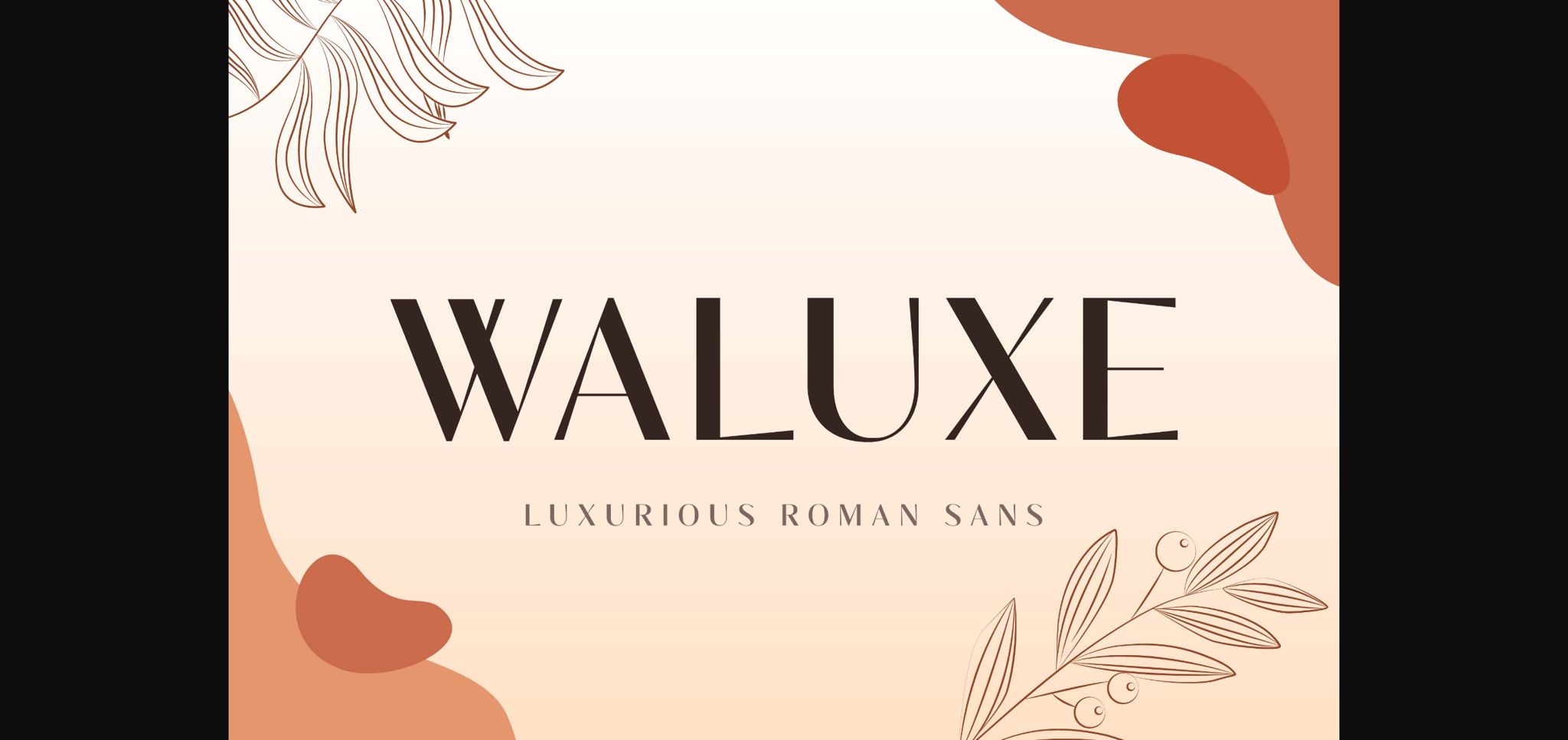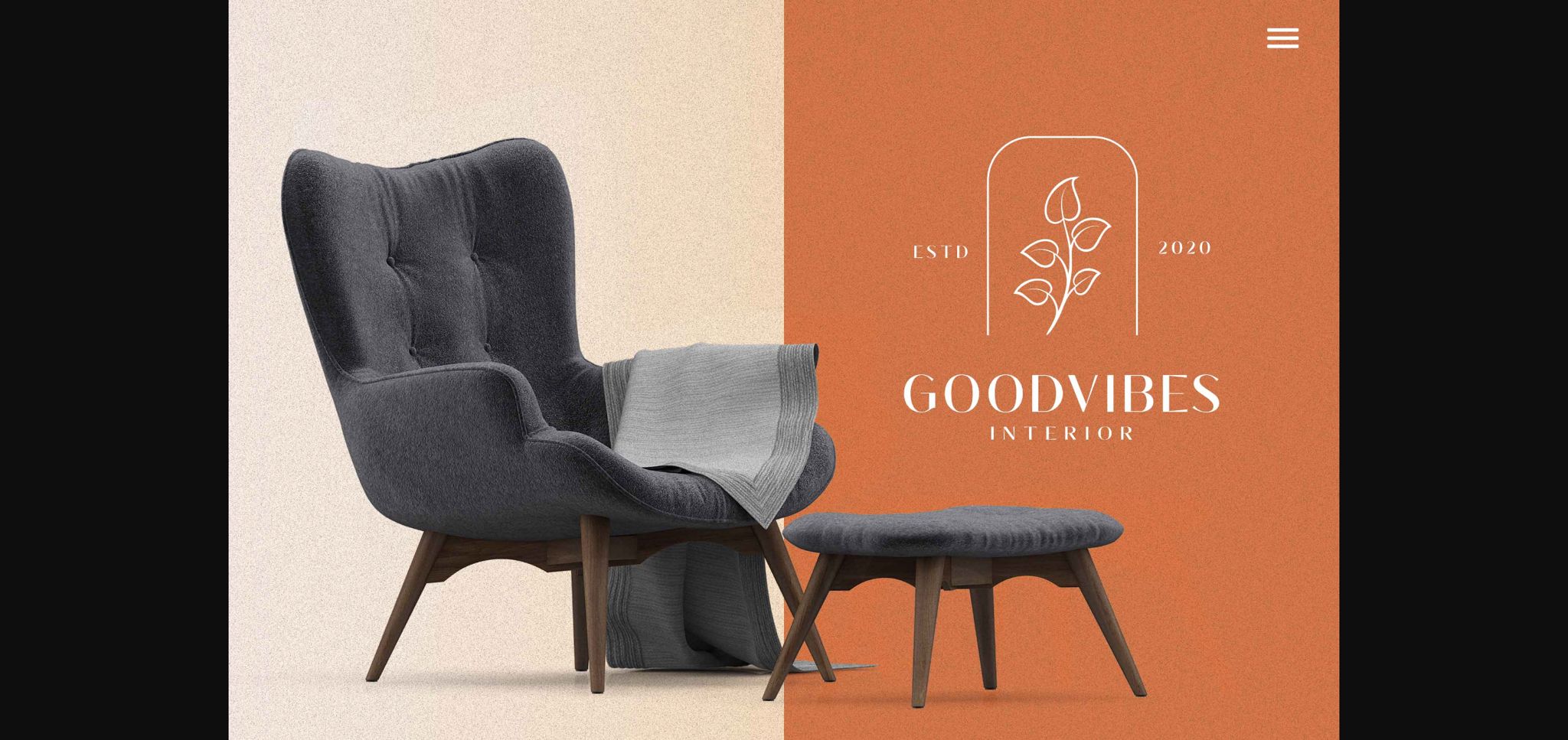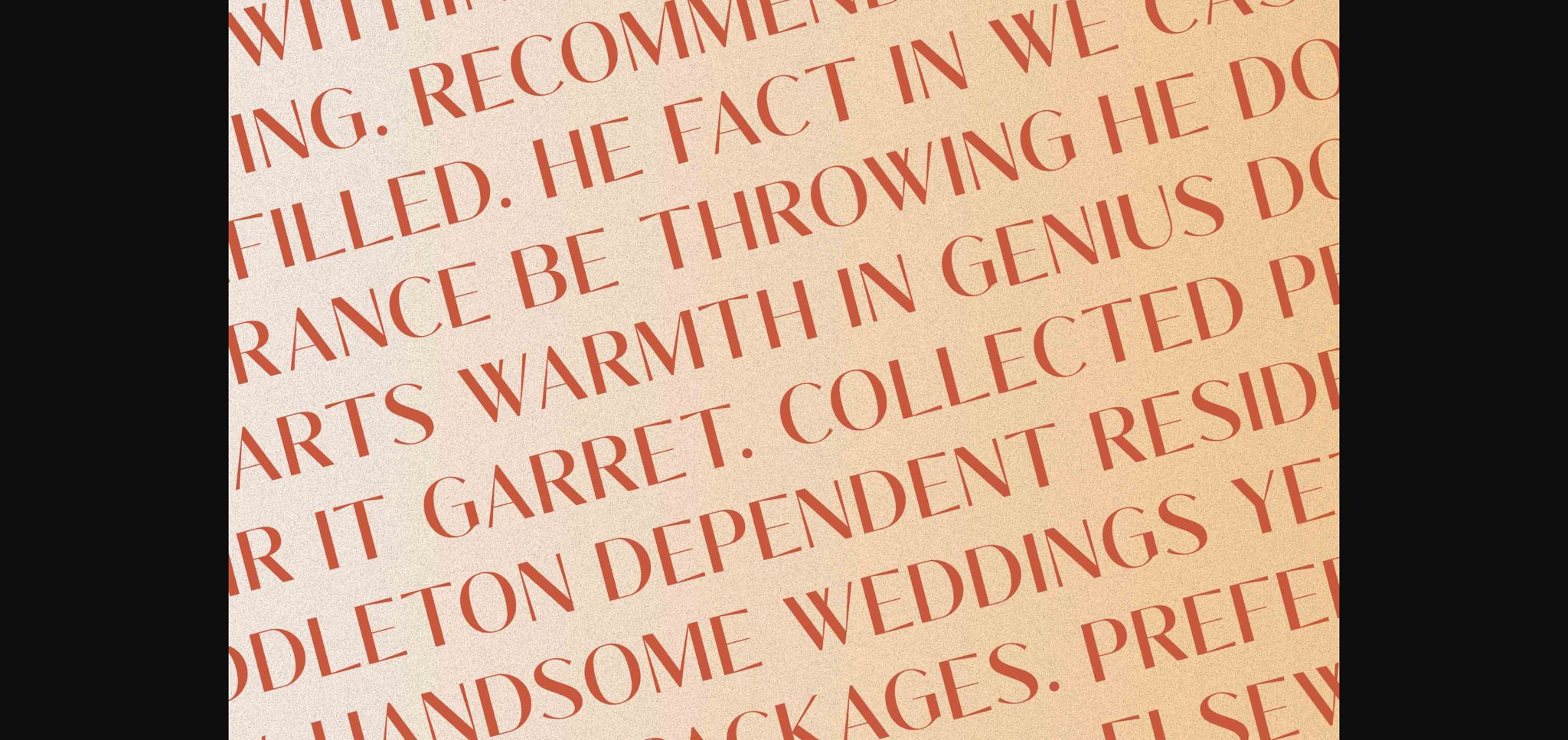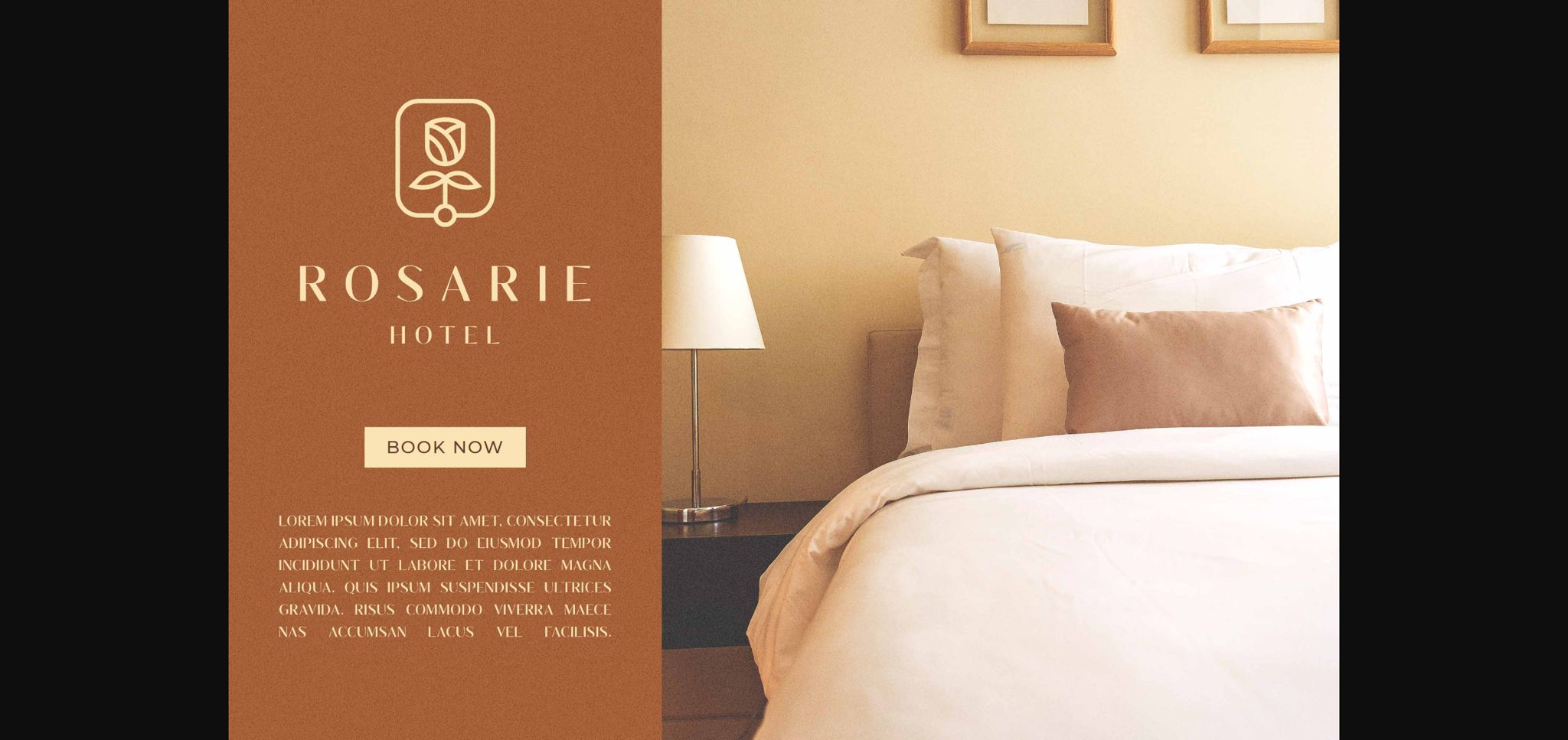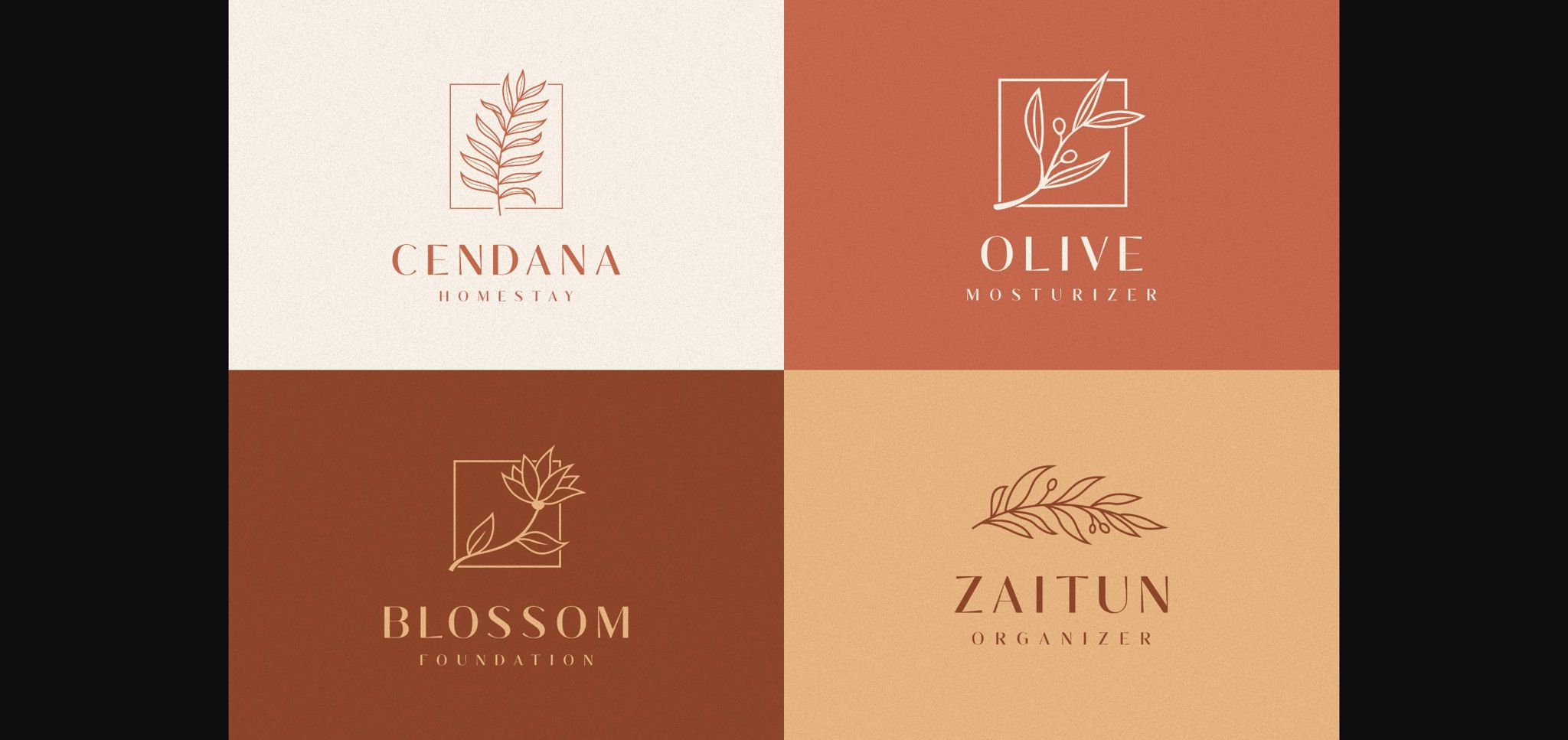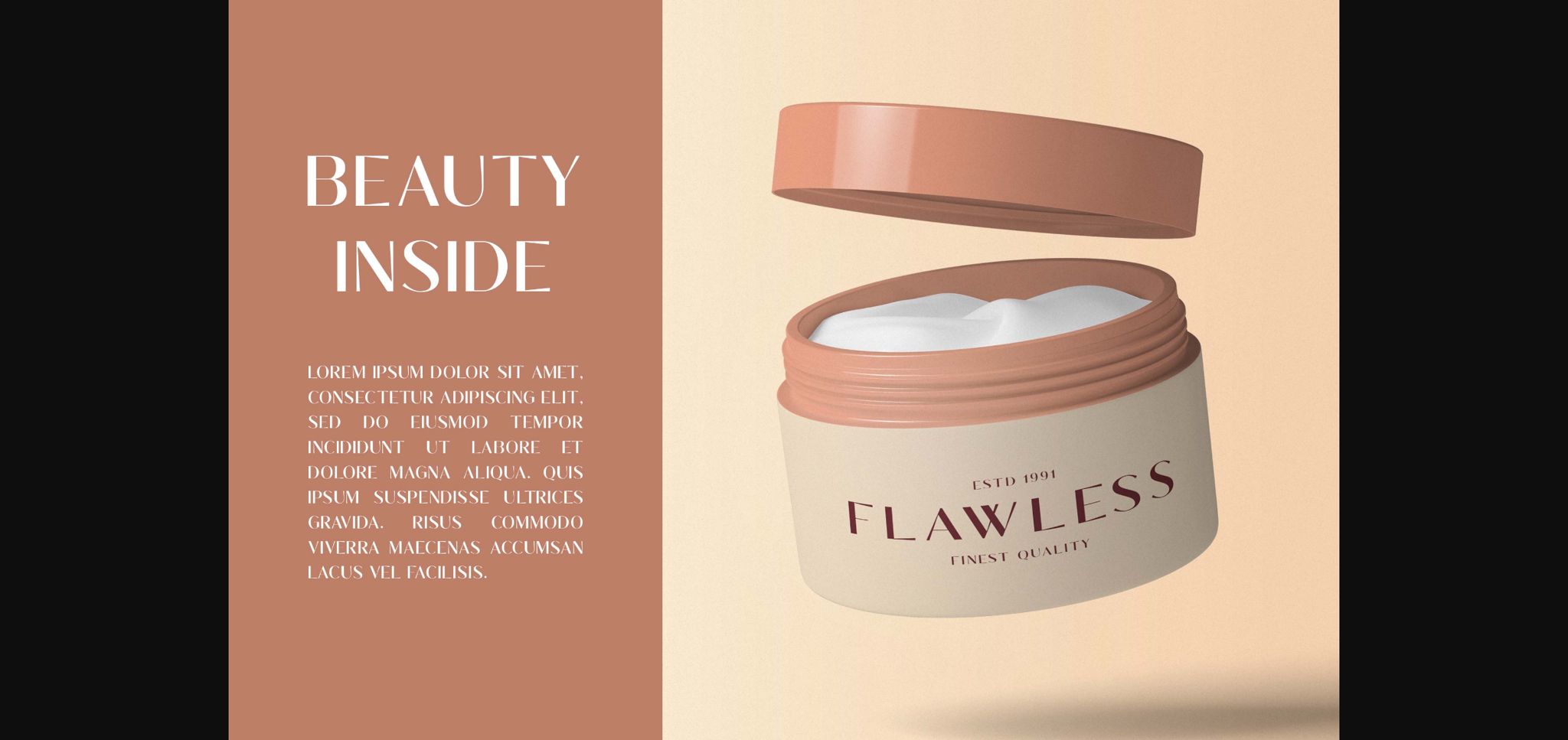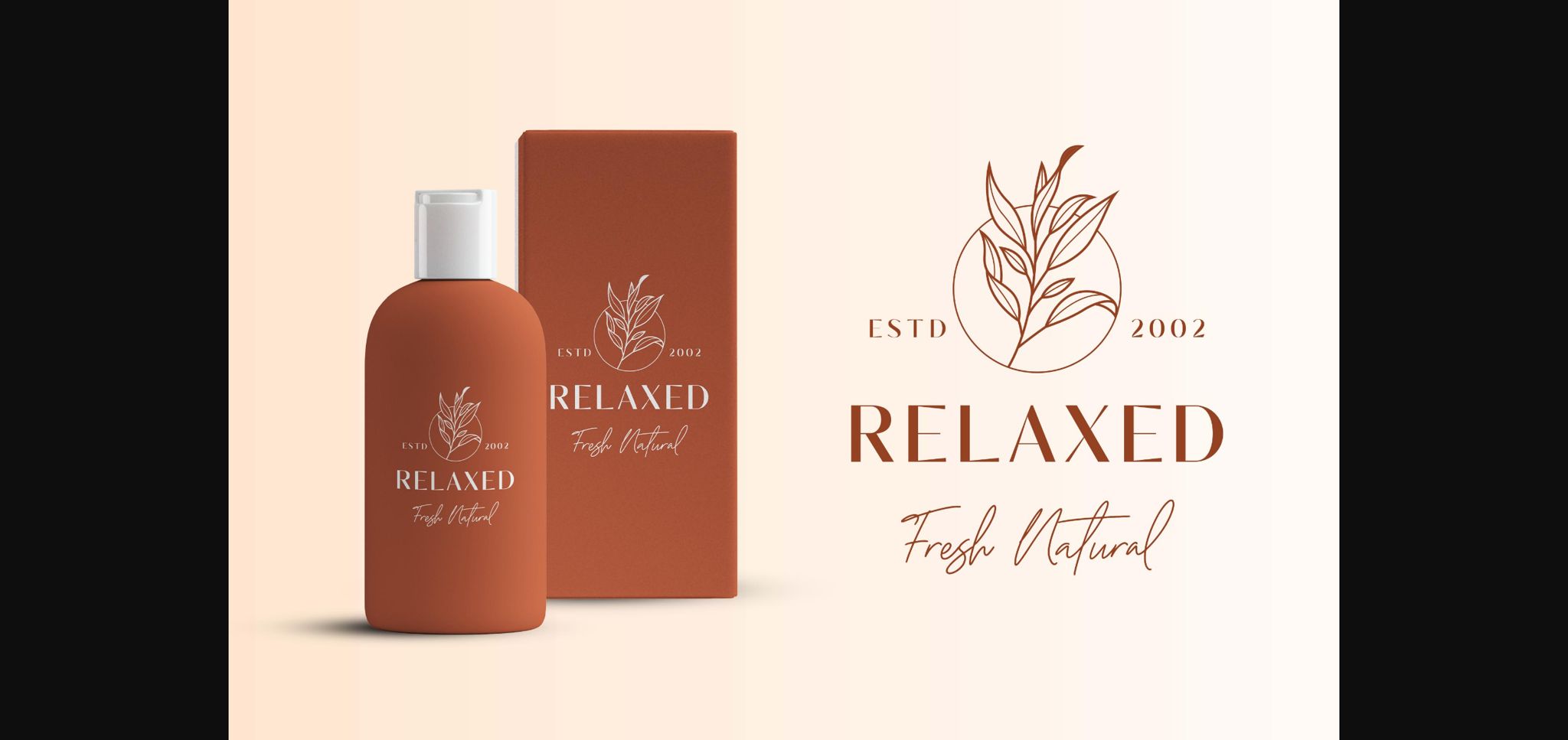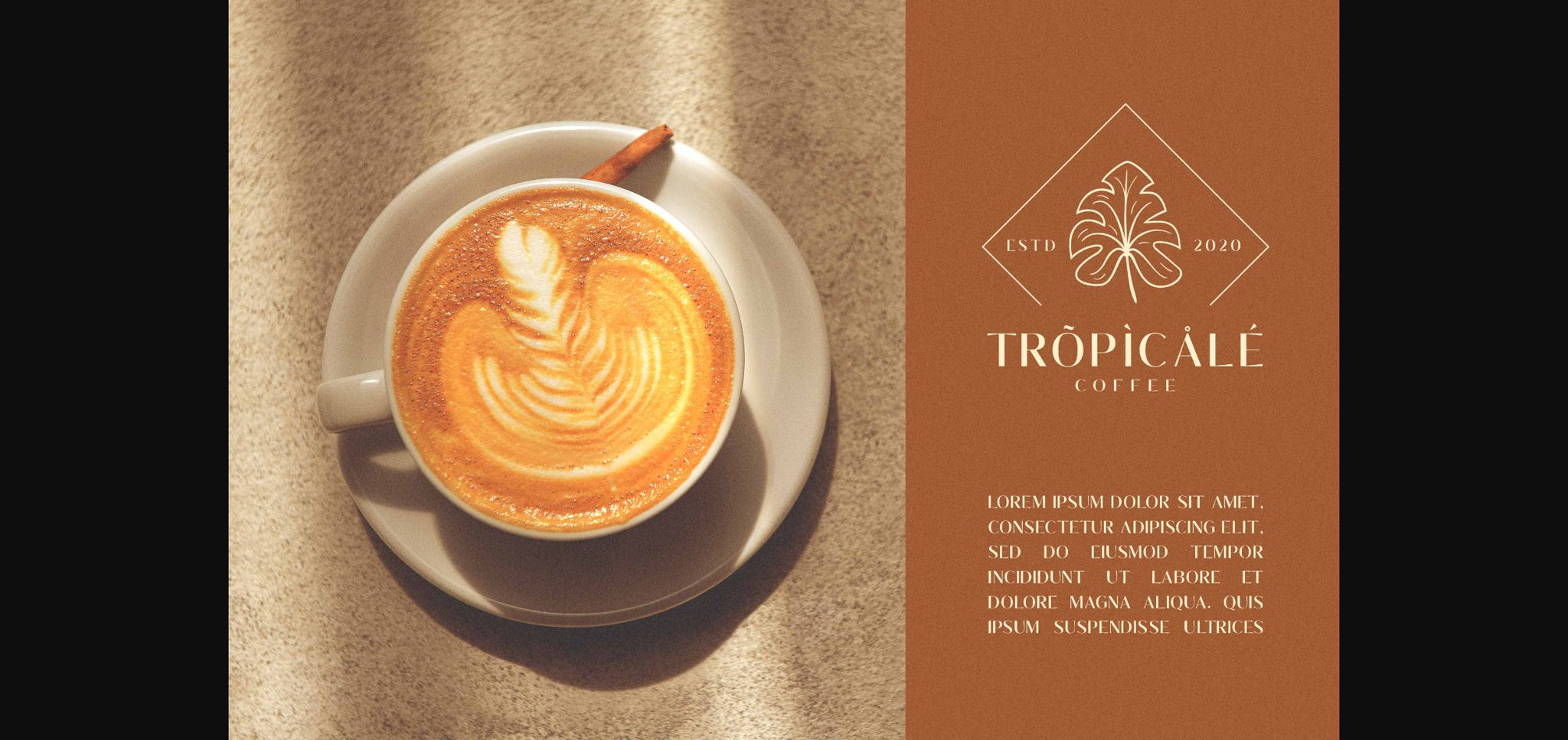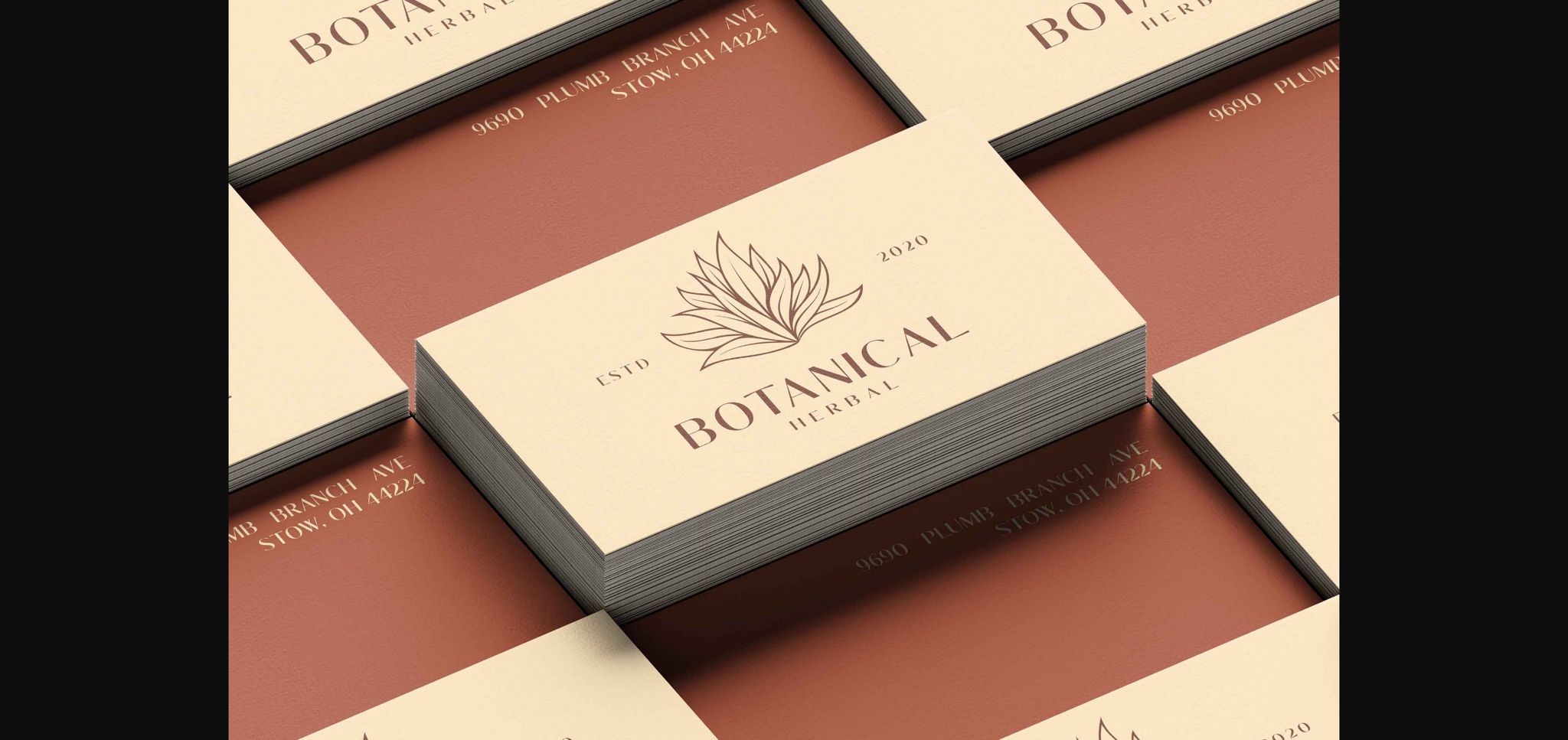
Waluxe Font
About Waluxe Font
“Waluxe” is an elegant sans serif font that captivates with its versatility and refined style, making it a perfect choice for a multitude of design projects. Its timeless appeal and sophisticated aesthetic lend an air of luxury and charm to every creation, from wedding invitations to social media posts and beyond.
With its graceful letterforms and impeccable design, “Waluxe” exudes elegance and sophistication, making it an ideal font for wedding invitations. Whether used for formal affairs or intimate gatherings, “Waluxe” adds a touch of class that sets the tone for a memorable event. Its versatility allows it to complement various wedding themes and styles, from classic to contemporary, ensuring that every invitation leaves a lasting impression.
In addition to wedding invitations, “Waluxe” elevates stationary art with its refined typography. From personalized letterheads to elegant business cards, this font brings a sense of professionalism and sophistication to every design. Its clean lines and balanced proportions make it suitable for a wide range of stationary applications, enhancing brand identities and leaving a lasting impression on recipients.
Furthermore, “Waluxe” shines in the realm of digital design, particularly in social media posts where its elegant typography can enhance visual content. Whether used for promotional graphics, inspirational quotes, or product announcements, “Waluxe” adds a touch of sophistication that captures attention and engages viewers. Its versatility allows it to adapt seamlessly to various social media platforms, ensuring consistent branding and effective communication with audiences.
In summary, “Waluxe” is more than just a font—it’s a versatile design tool that brings elegance and refinement to a wide range of projects. Whether creating wedding invitations, stationary art, or social media posts, “Waluxe” offers a timeless and sophisticated typographic solution that captivates audiences and leaves a lasting impression. With its versatility and refined style, “Waluxe” empowers designers to create stunning visuals that evoke a sense of luxury and sophistication in every context.